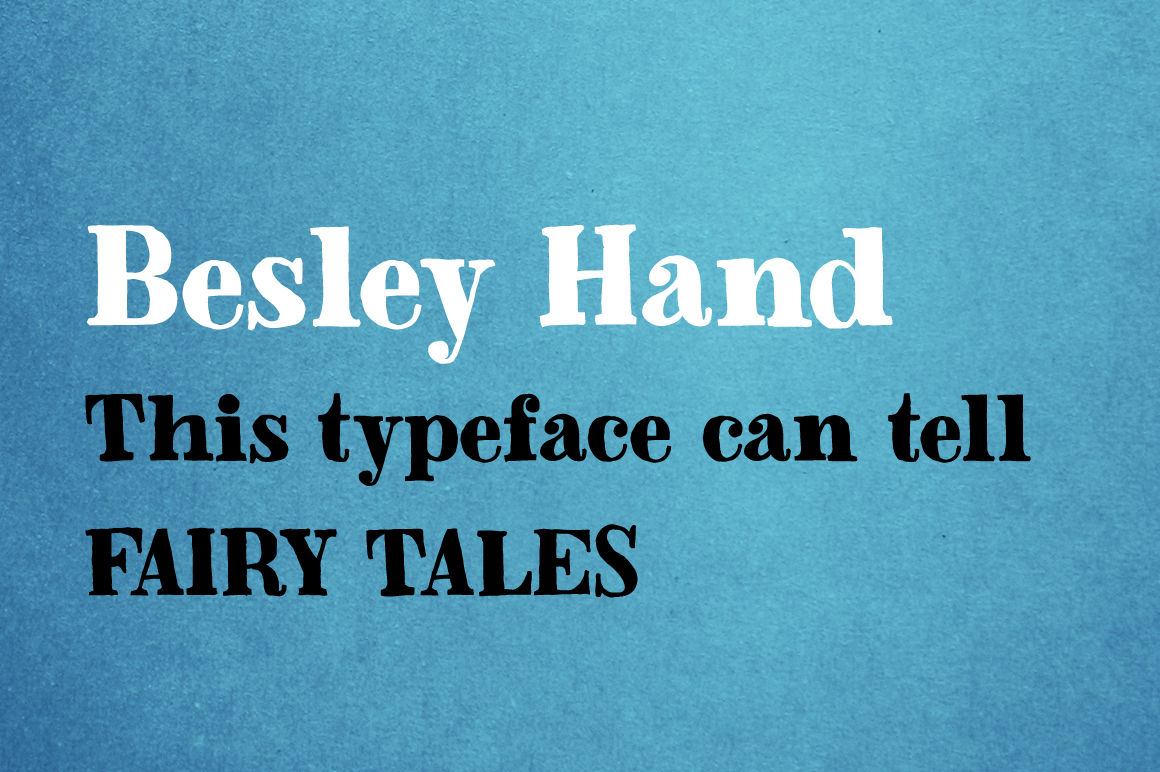
Besley Hand Font
A funny childish handwritten font, with a spirit. This typeface can tell fairy tales.
Besley Hand is a slab serif that goes well with the sans serif Trango.